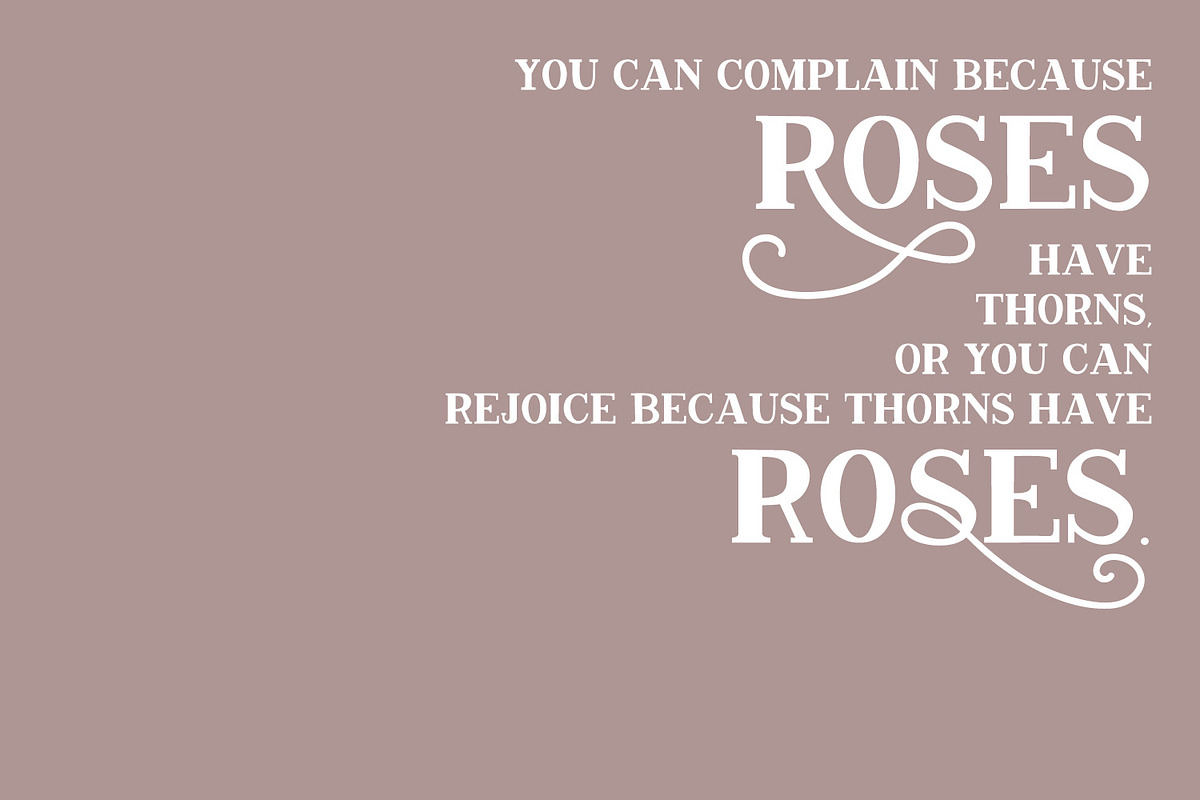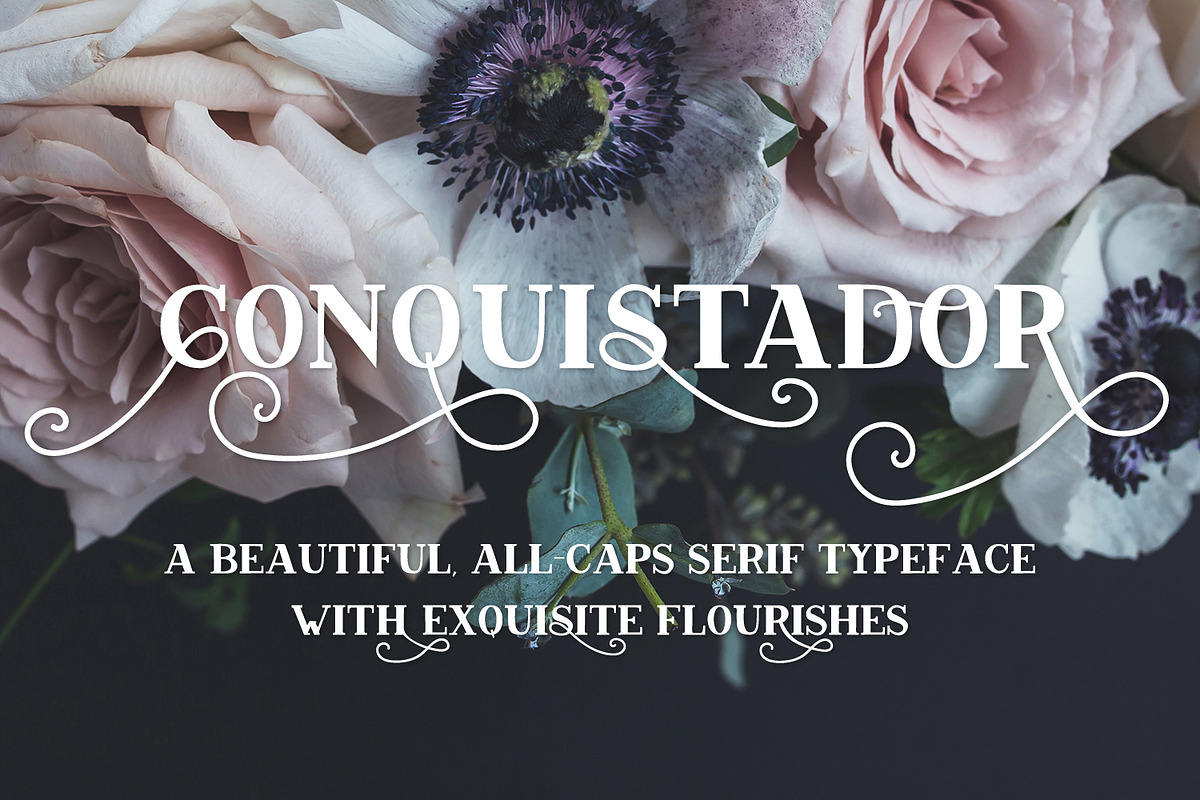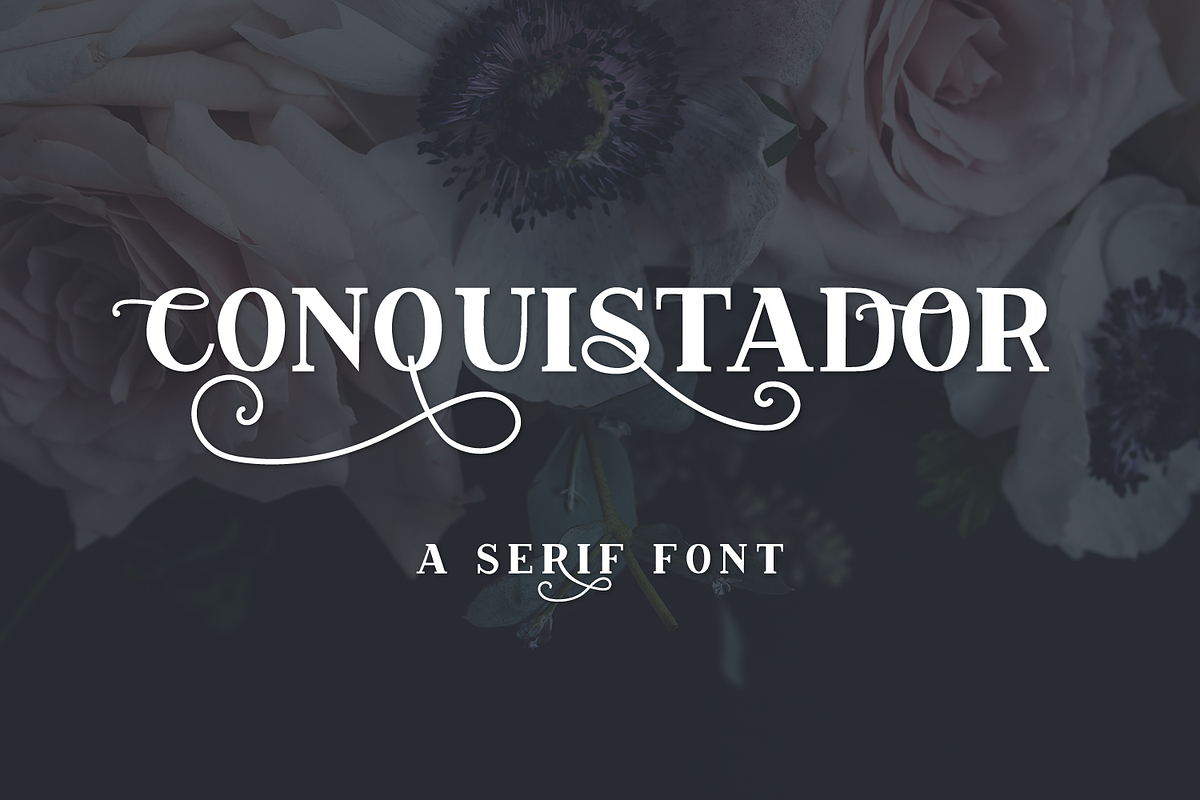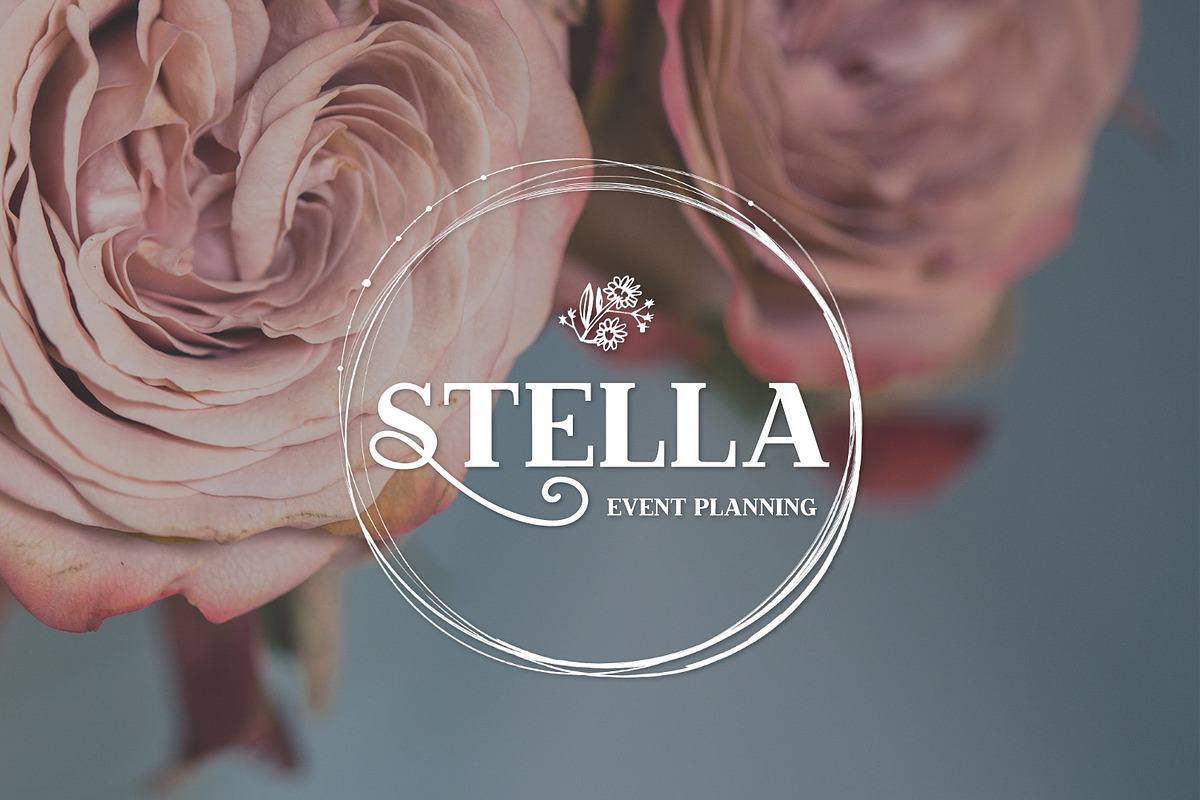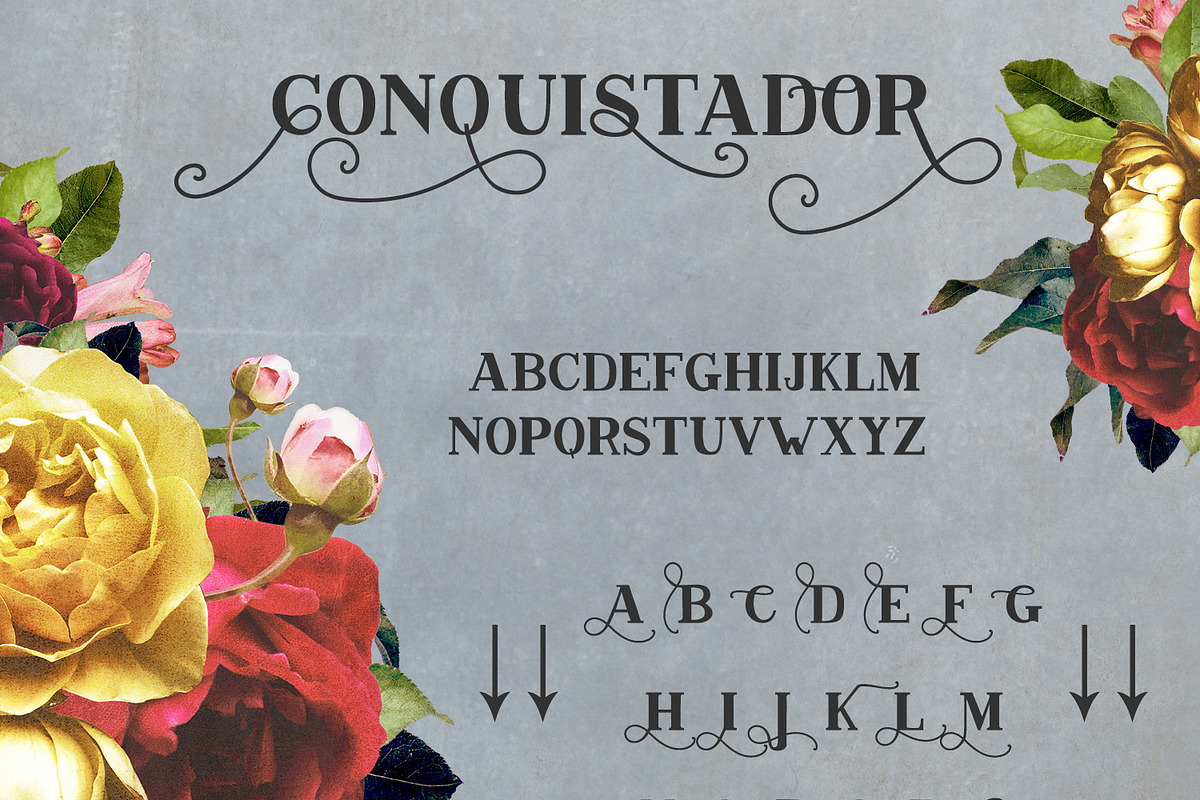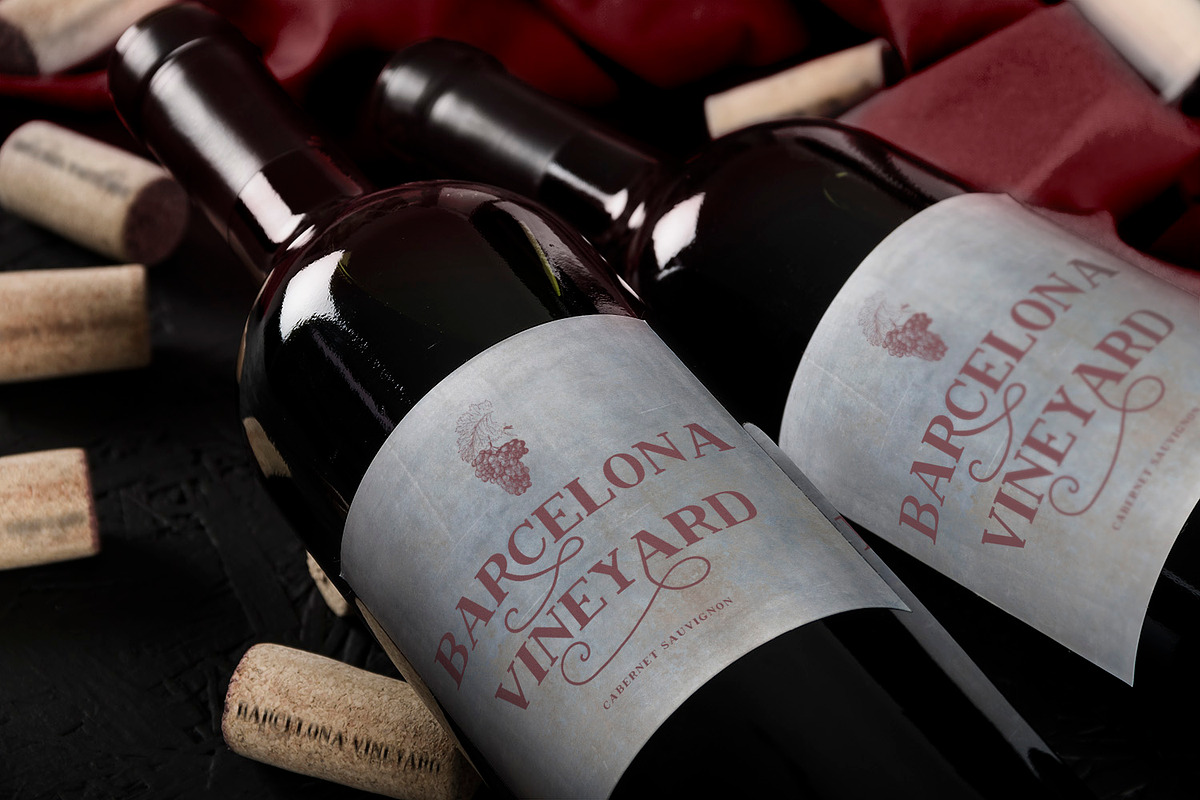
Conquistador Serif with Flourishes
Conquistador is a strong, all-caps serif font, inspired by the Florida city of Saint Augustine, the oldest city in the United States. Conquistador’s lowercase version features simple, clean flourishes, perfect to add that little extra something to a logo, an invitation, signage, and more. In addition to this, there are plenty of alternates to customize your text to the fullest extent!
Conquistador includes Western European language support.